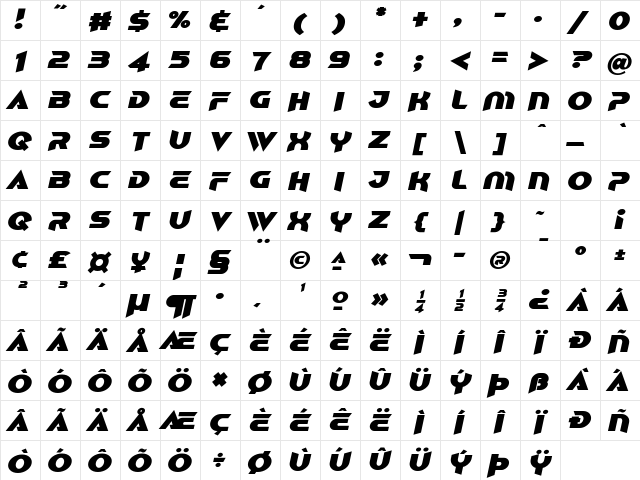
Balisong Ultra Italic
Designer: J￿n Garnica
Design Context for Balisong Ultra
Balisong Ultra is a composed and adaptable typeface that performs quietly and consistently across a wide range of design contexts. The slanted form adds forward momentum and visual energy.
Pro Tip: Use Balisong Ultra for emphasis, pull quotes, and subheadings where its slanted energy can add rhythm to the layout.